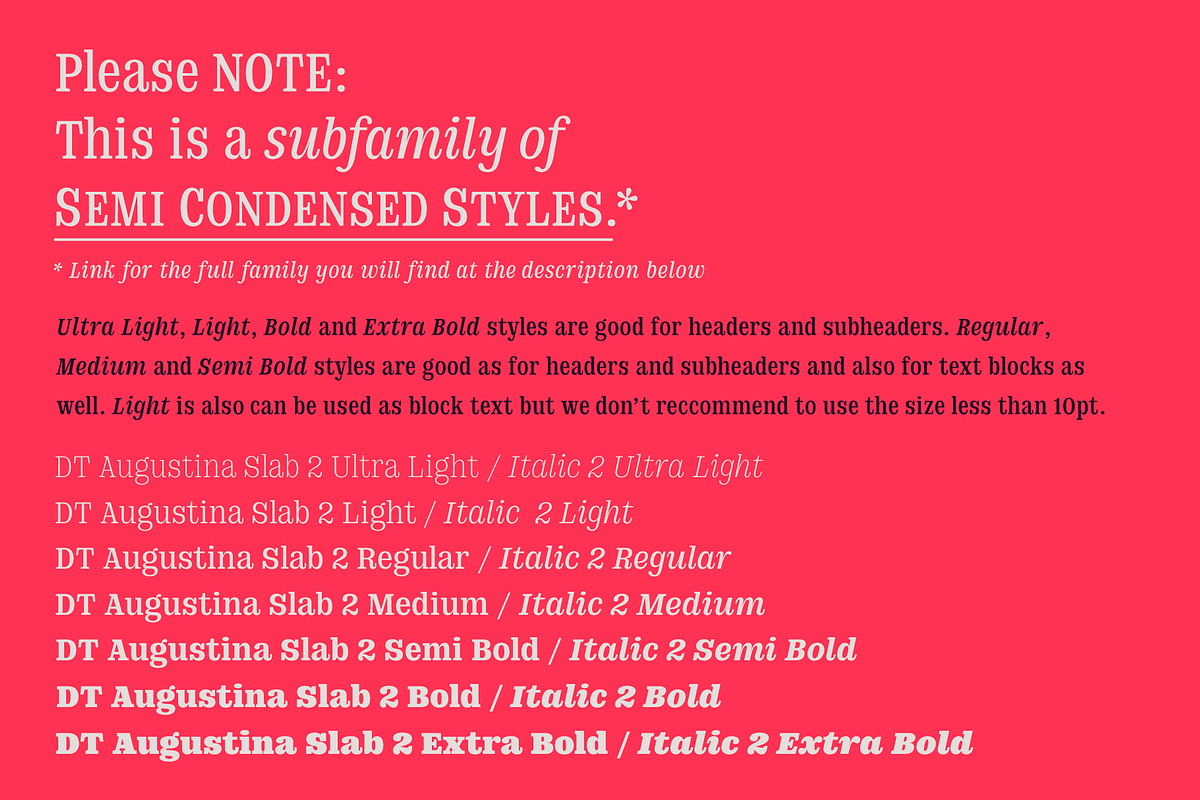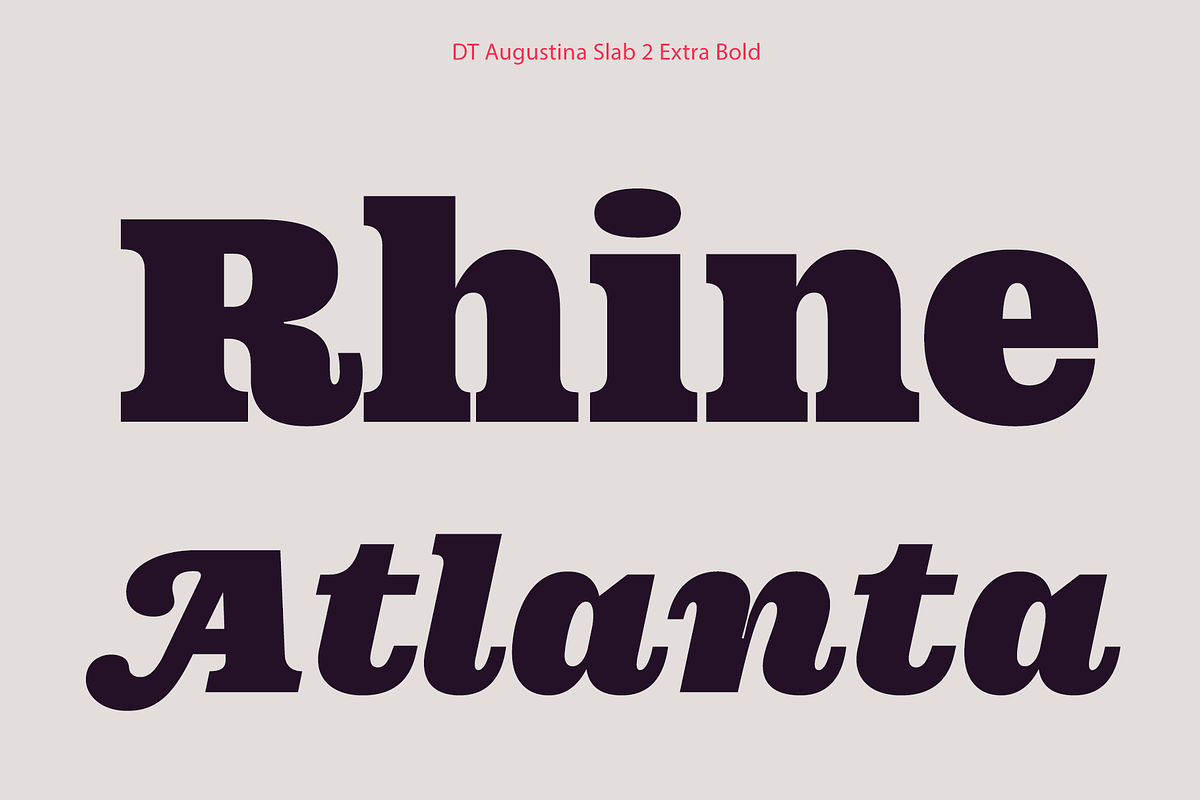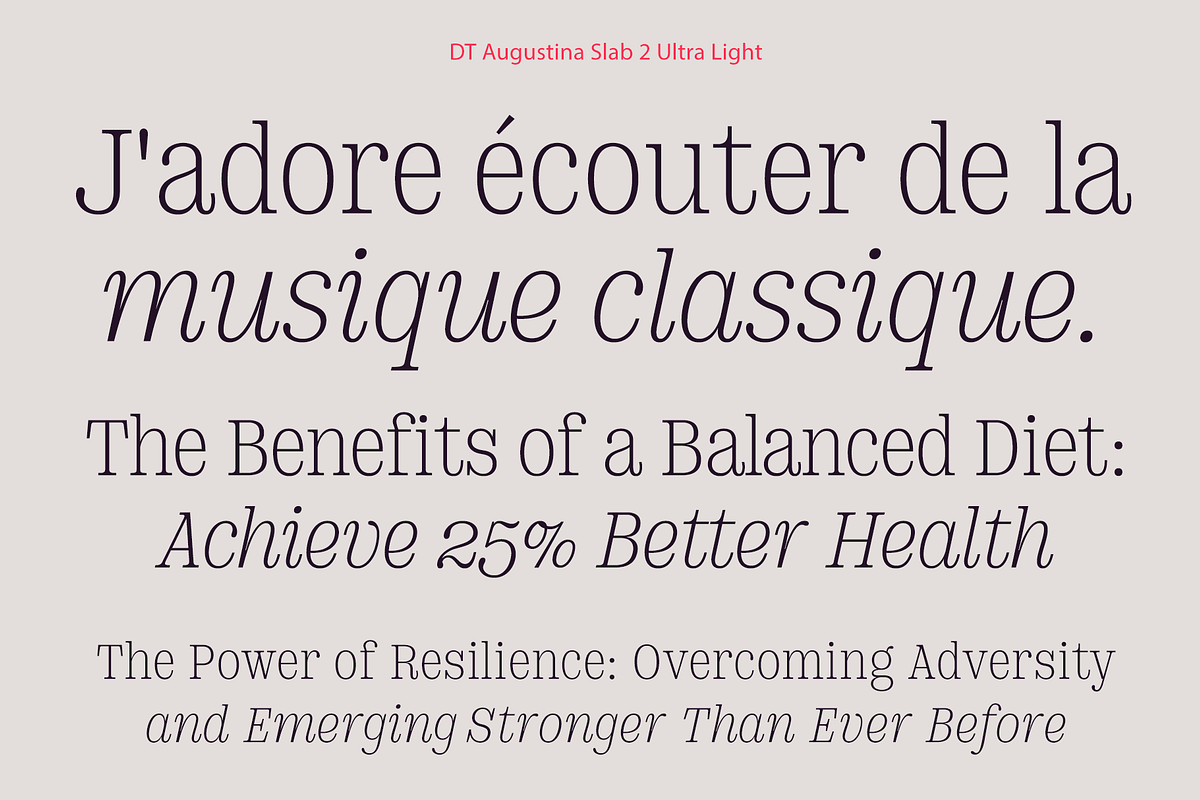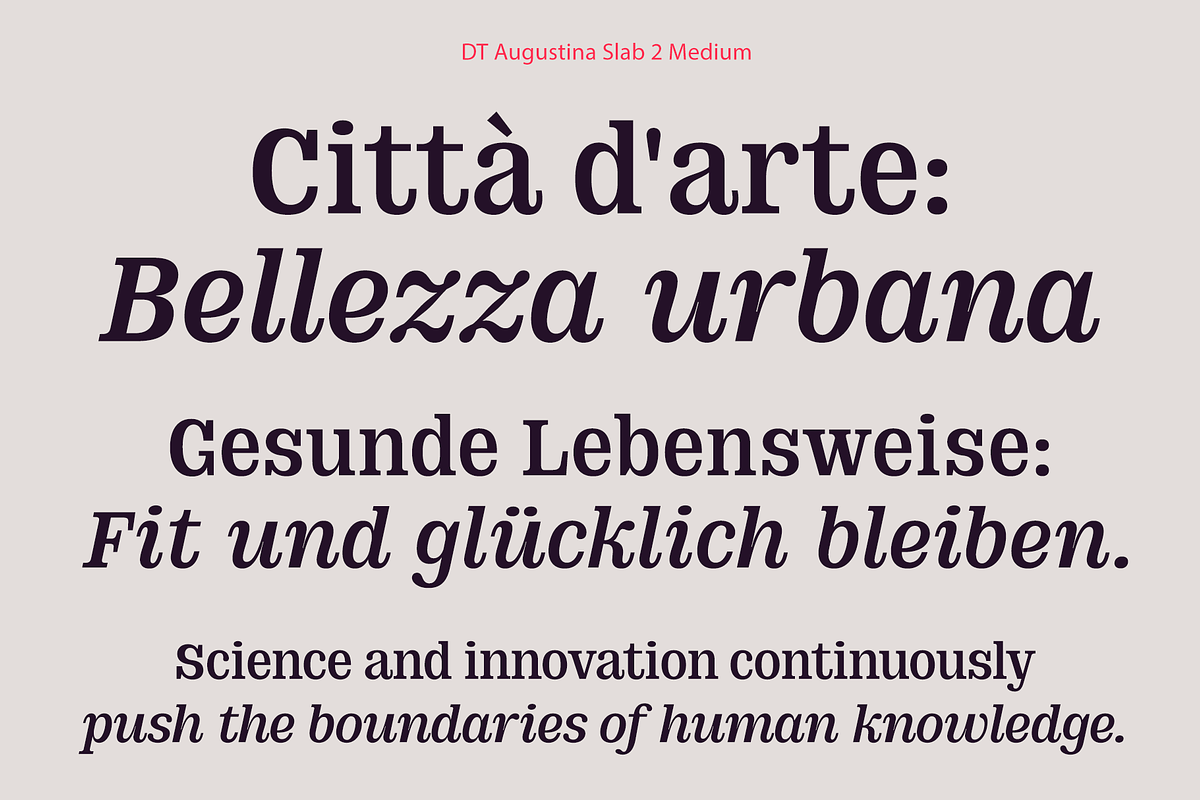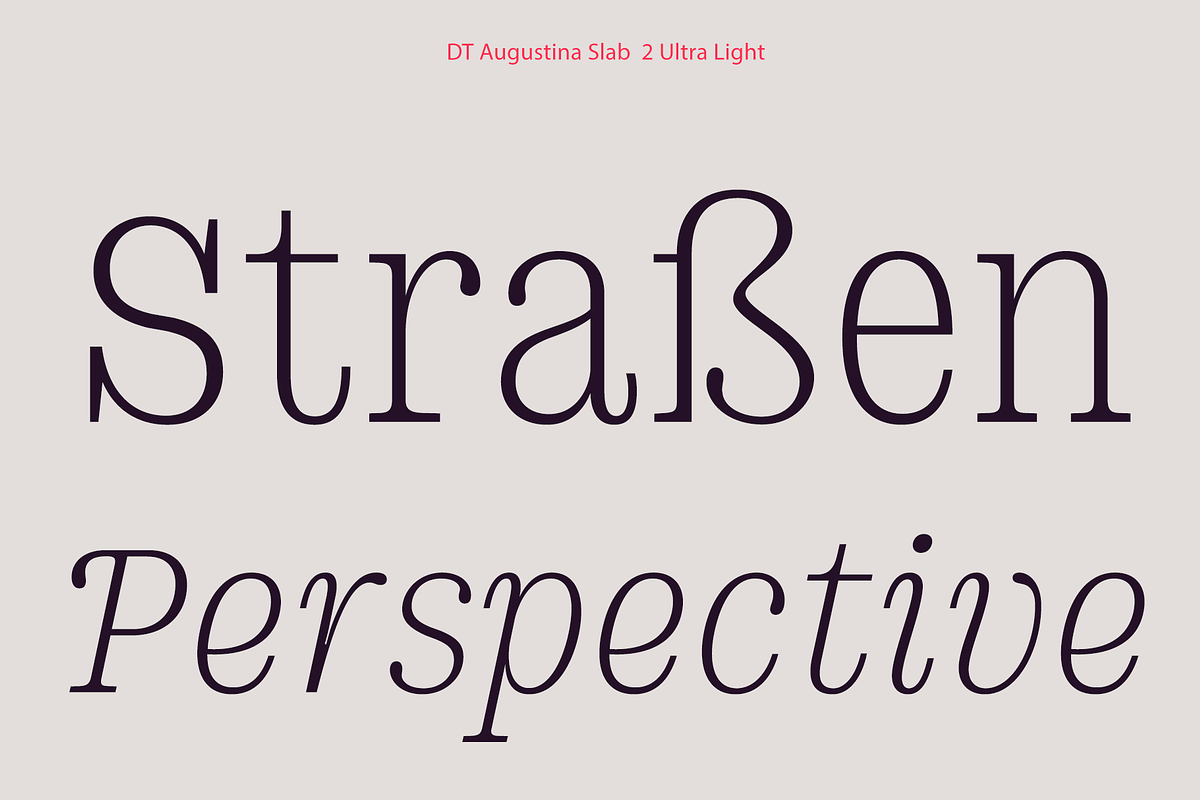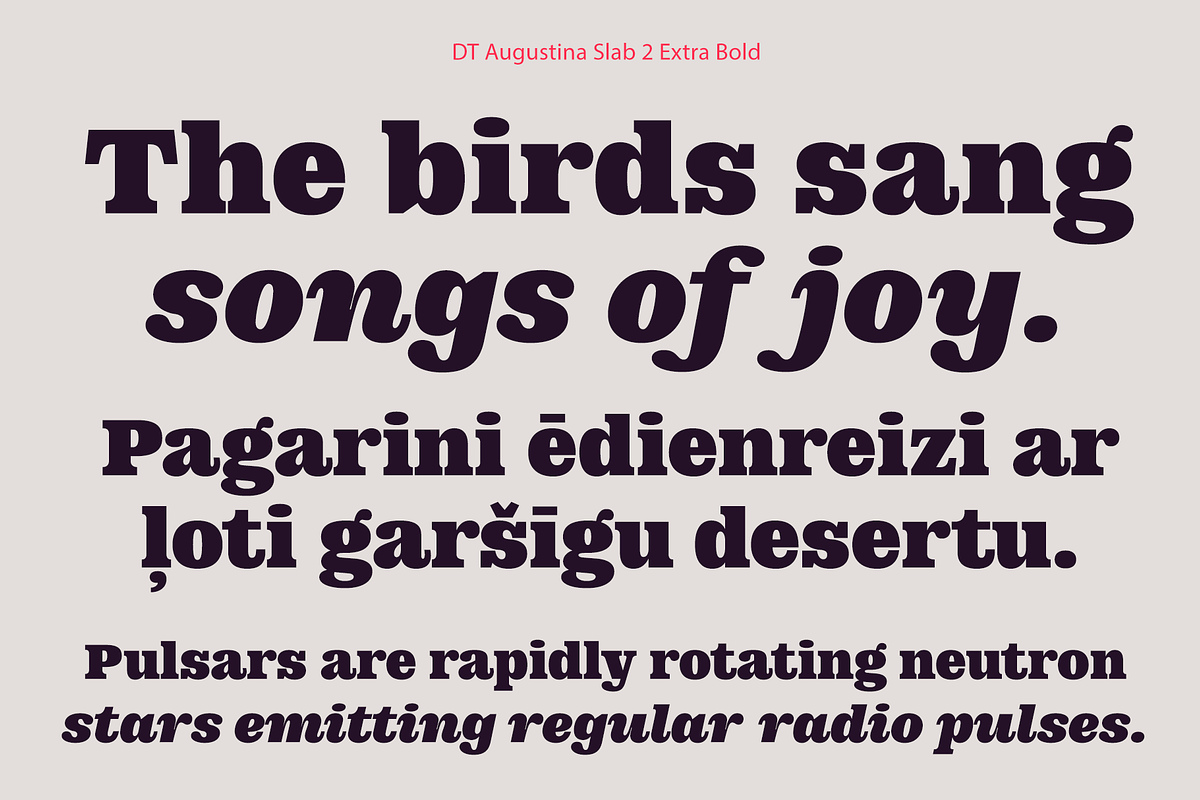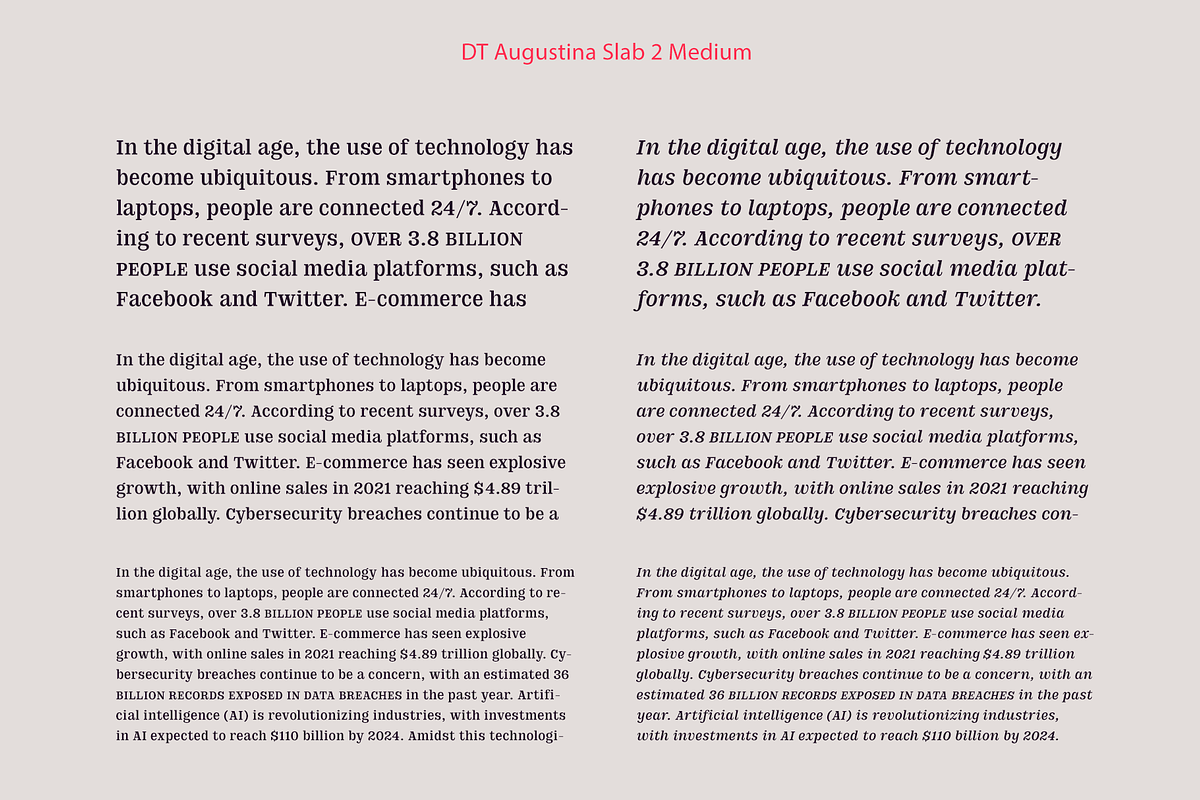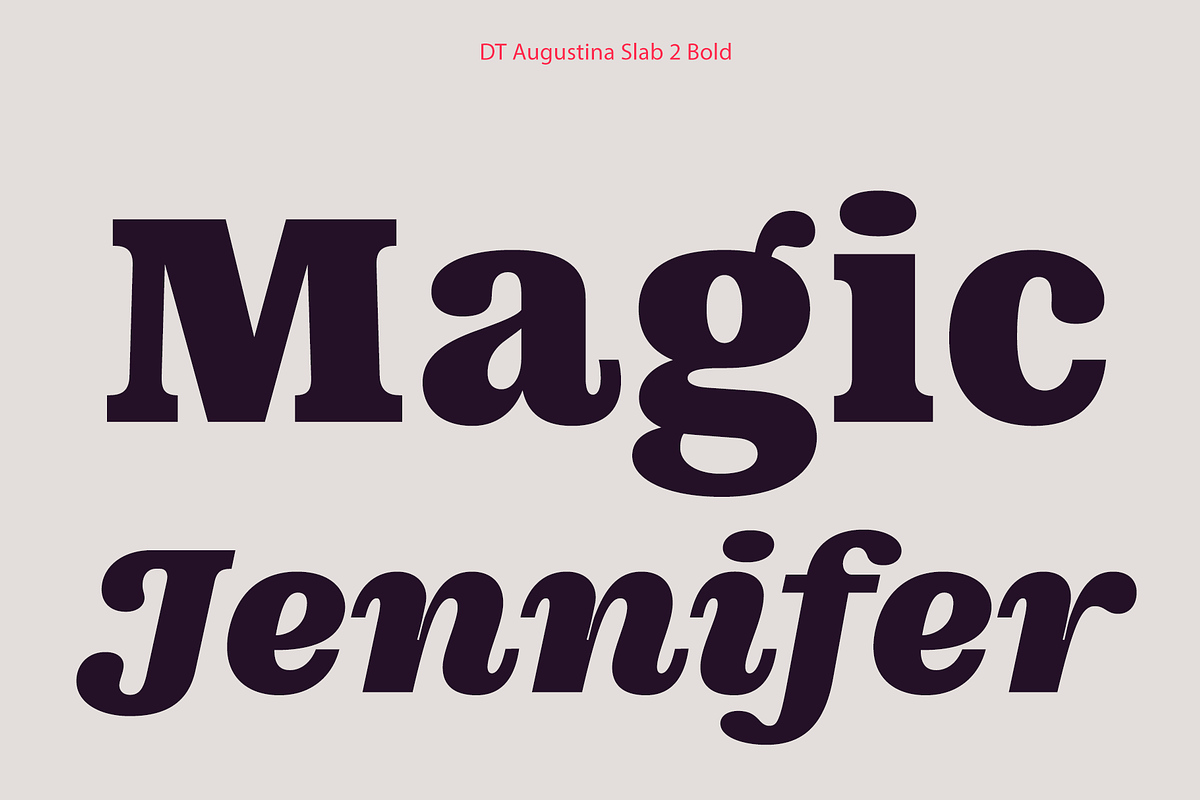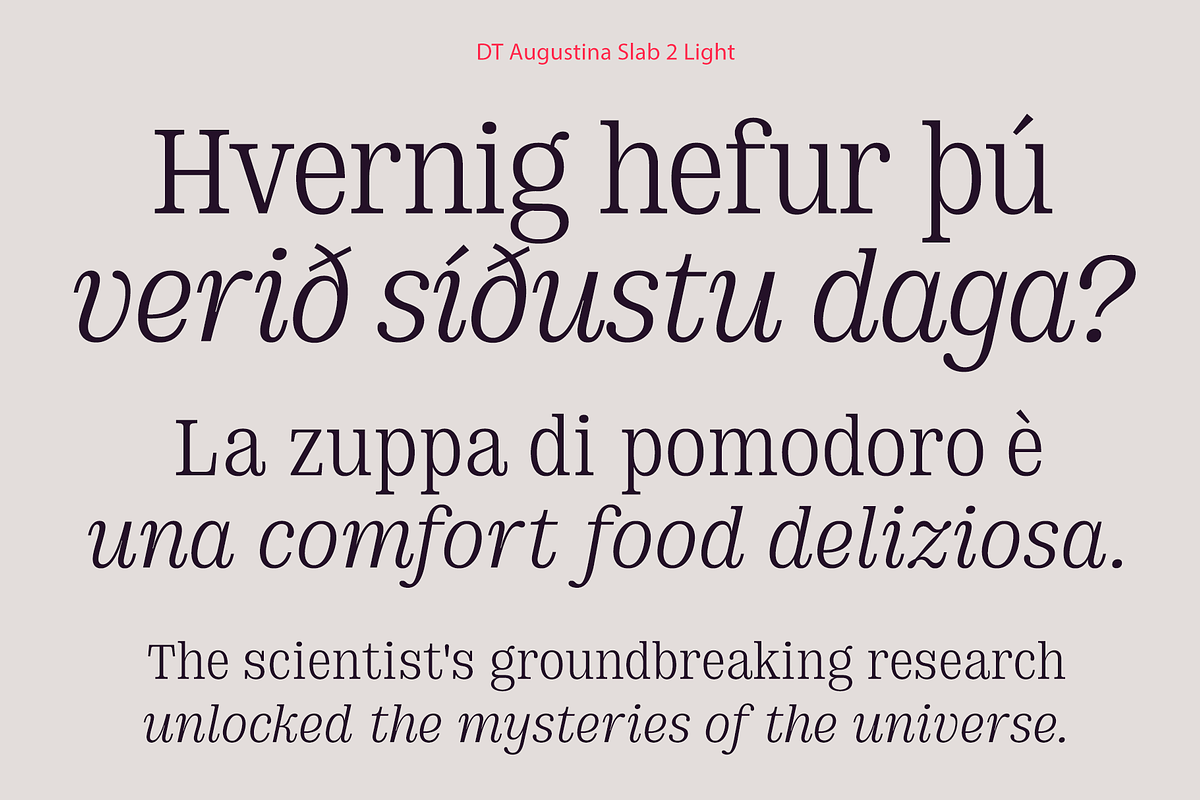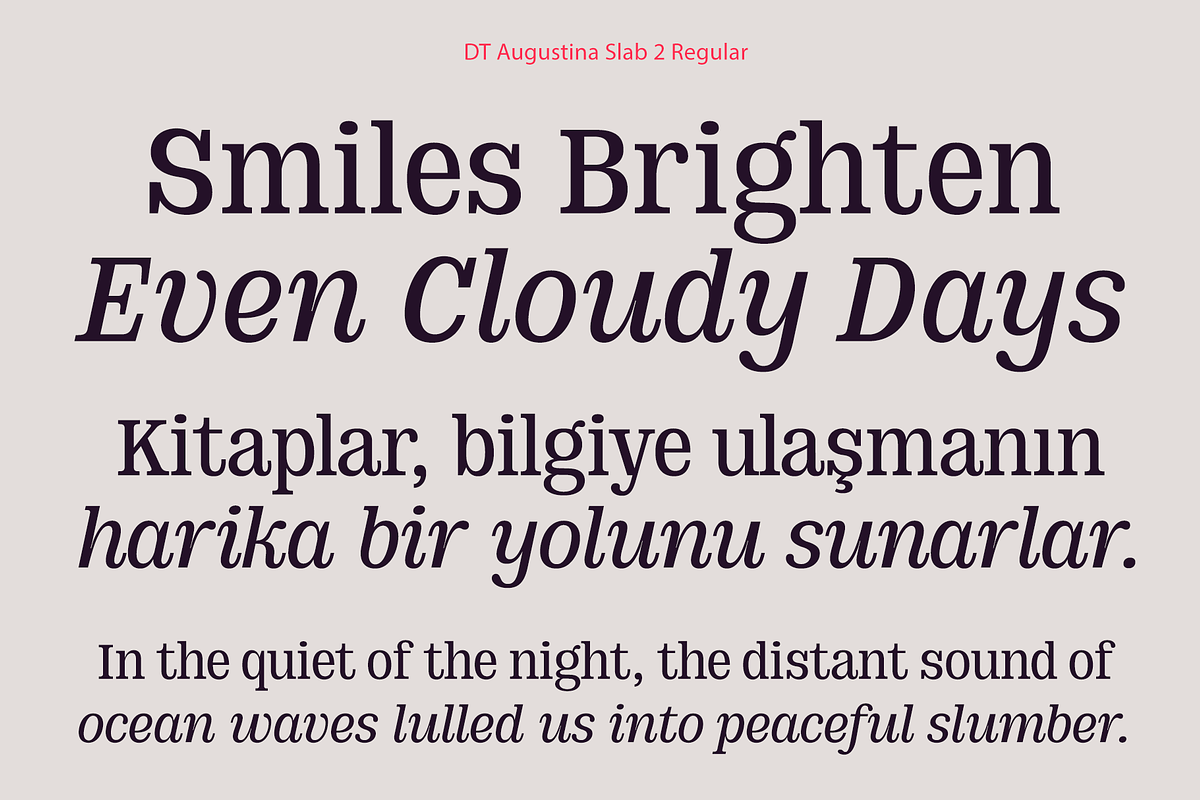
DT Augustina Slab 2 Subfamily
Please NOTE: This is a subfamily of DT Augustina Slab Semi Condensed Styles.
DT Augustina Slab is an original Clarendon's style slab serif font family of 98 styles including 7 weights, 7 widths plus Italics. There is no such a big choice of Clarendons with a wide range of styles on a market.
Super wide range family will satisfy almost any request. Ultra Lights and Light styles will add elegance and lightness to your headlines, especially with using Italic swashes. Regulars, Mediums and Semi Bold will make your text blocks readable and stylish. Combine with Italics and Small Caps for sub-headers and highlights to get an incredible result. And finally Bold and Extra Bold for massive and heavy text headers. Strong, stable and reliable.
The whole family has been working well in almost any type of a project: Websites, Apps, E-Books, Books, Magazines, TV broadcasting, Packaging.
The family has an Open Type Features like a Ligatures, Italic Swashes, Small Capitals, Case Sensitive Forms, Tabular Figures, Old Style Figures, Tabular Old Style Figures, Circled Figures, Black Circled Figures, Fractions, Superscripts, Subscripts, Stylistic Sets, Localisation forms for Moldavian / Romanian, Catalonian and Turkish.